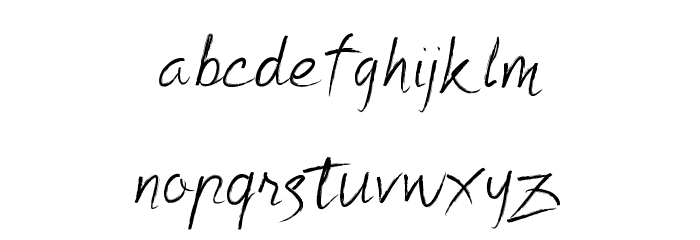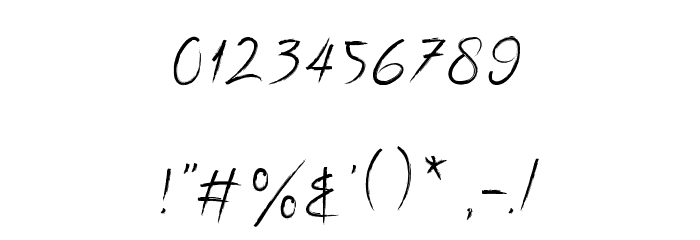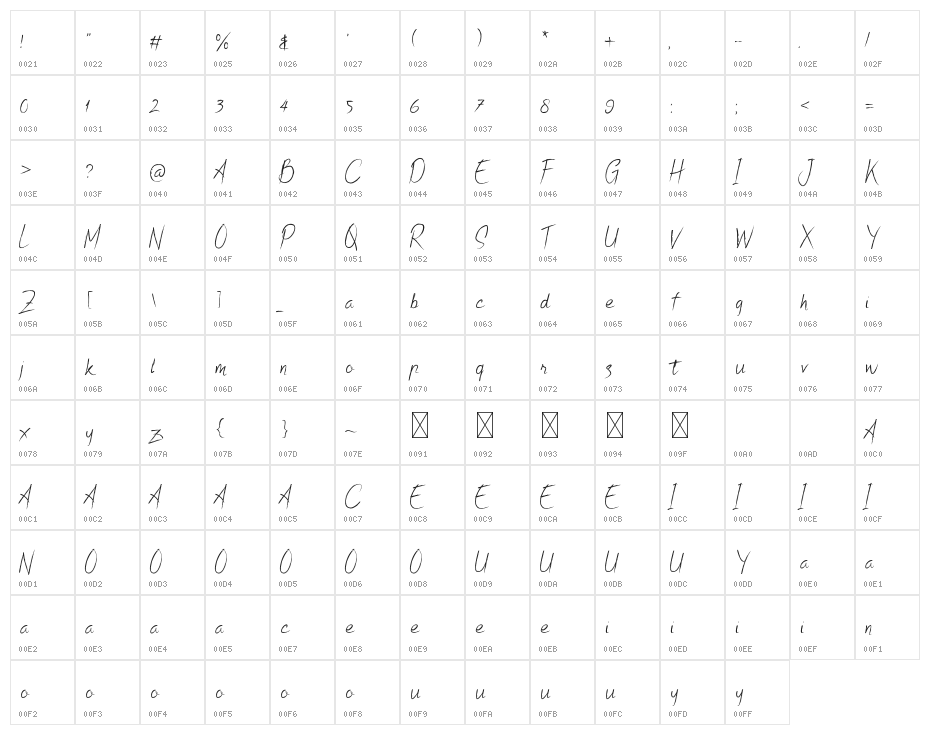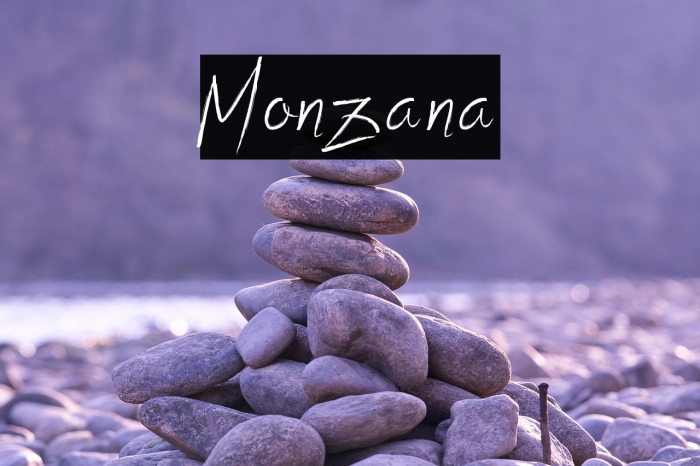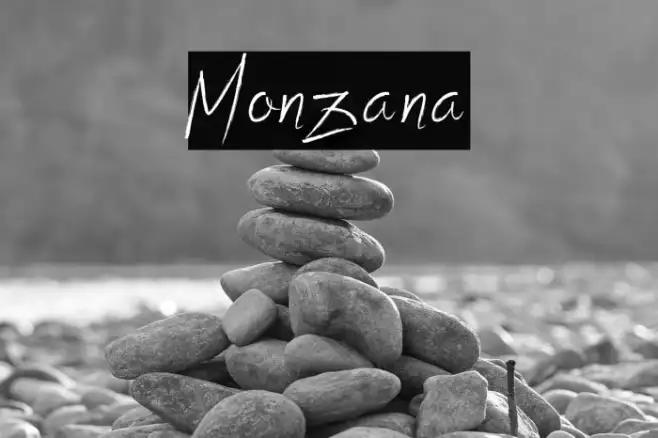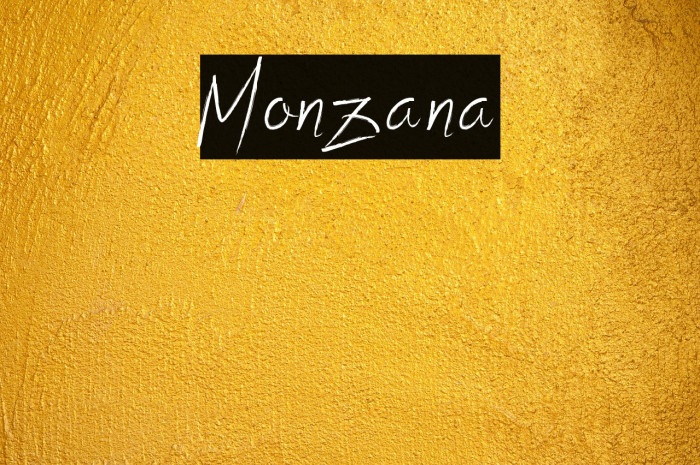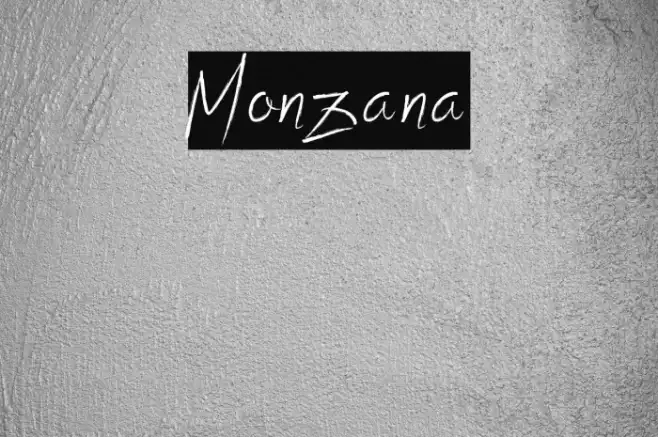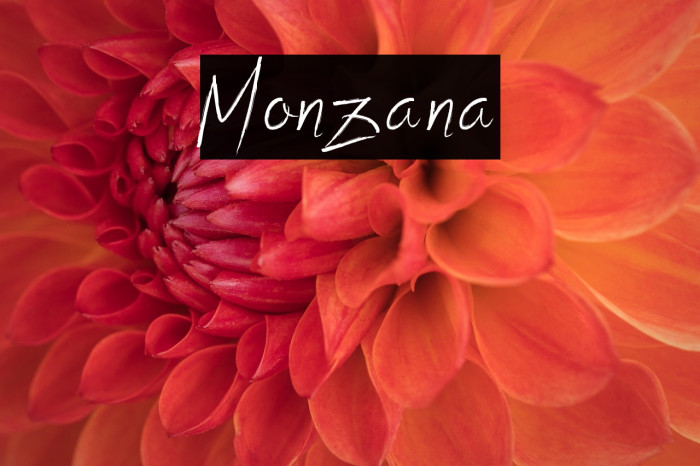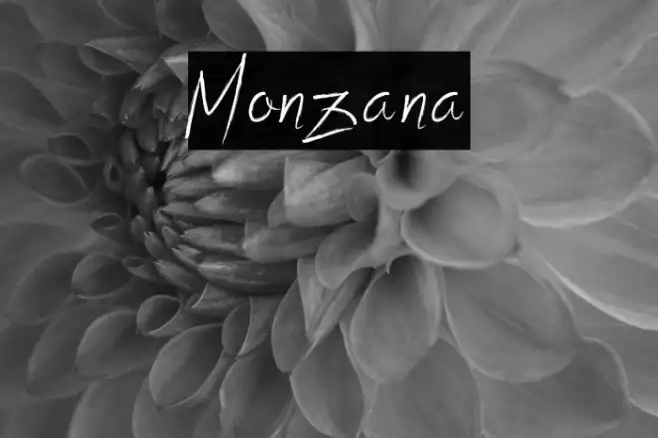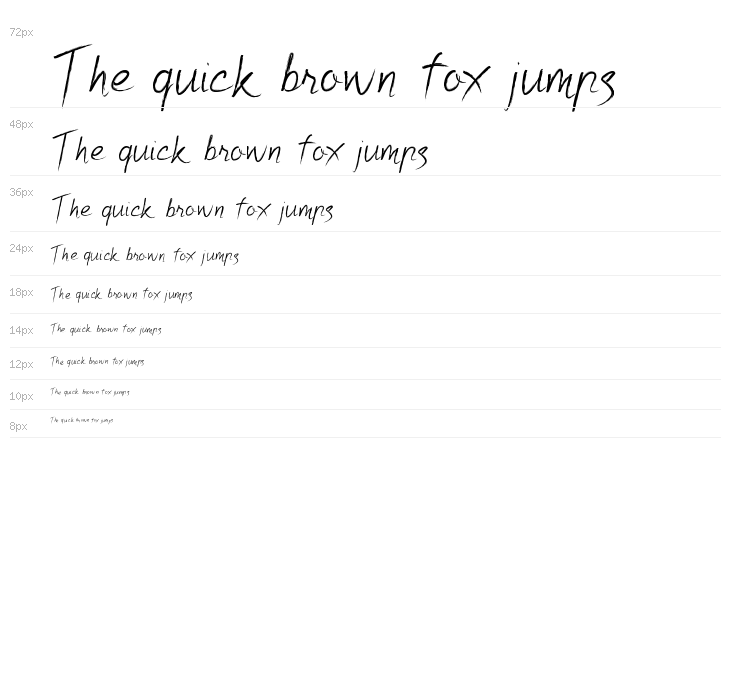
Monzana Font
This font exhibits a dynamic and expressive handwritten style, characterized by its fluid and slightly irregular strokes. The uppercase letters are bold and prominent, with a slight slant that adds a sense of motion and energy. The lowercase letters maintain a consistent flow, complementing the uppercase with their elegant curves. Numbers and special characters are crafted with the same attention to detail, ensuring readability while retaining the font's artistic flair. The overall appearance is both modern and artistic, making it suitable for creative projects that require a personal touch.
A dynamic and expressive handwritten font with fluid strokes.
- Proposed Projects: Ideal for creative projects such as invitations, greeting cards, personal branding, and artistic posters.
- Use Case: Logos, Headlines, Artistic projects